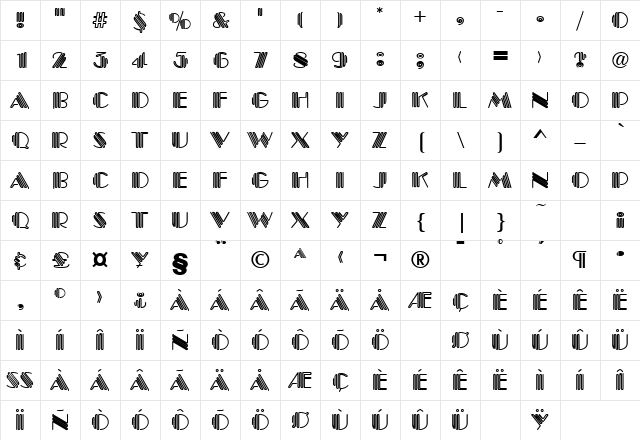
Piccolo Regular
Design Context for Piccolo
Piccolo is a composed and adaptable typeface that performs quietly and consistently across a wide range of design contexts.
Pro Tip: Use Piccolo in both headline and body roles to test its range before committing to a single application.